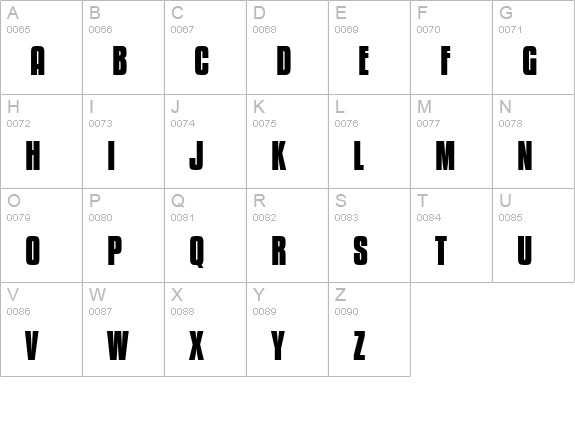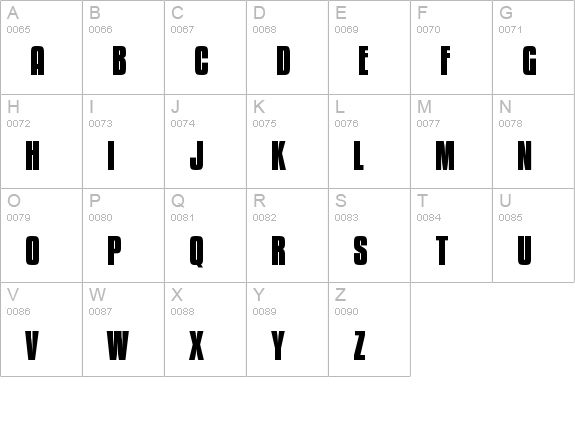
Kenyan Coffee Bold Font Details
Kenyan Coffee Bold is a strong, high-contrast variant in the Kenyan typeface family \xE2\x80\x94 well suited to headlines, attention-grabbing titles, and strong calls-to-action.
Kenyan Coffee Bold font is a captivating display typeface that will add a bold and powerful touch to your design projects. This font exudes confidence and strength, making it perfect for headlines, logos, posters, and other attention-grabbing designs. With its unique and eye-catching letterforms, Kenyan Coffee Bold font will make your text stand out from the crowd. The thick, bold strokes of this font create a commanding presence that demands attention. Whether you're designing for print or digital, this font will leave a lasting impression. One of the best things about Kenyan Coffee Bold font is that it is freely available to download at FontsMarket.com. This means that you can easily access this stunning font and use it in your projects without any cost. FontsMarket.com provides a wide range of high-quality fonts, and Kenyan Coffee Bold font is no exception. In addition to its striking appearance and free availability, Kenyan Coffee Bold font is also versatile and easy to work with. It is highly legible, even at smaller sizes, ensuring that your message is clear and easy to read. The clean lines and balanced proportions of this font make it a great choice for a variety of design applications. So, if you're looking to make a bold statement with your typography, look no further than Kenyan Coffee Bold font. Download it for free at FontsMarket.com and unleash its power in your designs.